- Expansion of K-content and AI-driven creation environments positions the platform as an accessible production tool for all creators
- Individual plans account for 77% of usage, highlighting accelerated platform adoption among personal creators
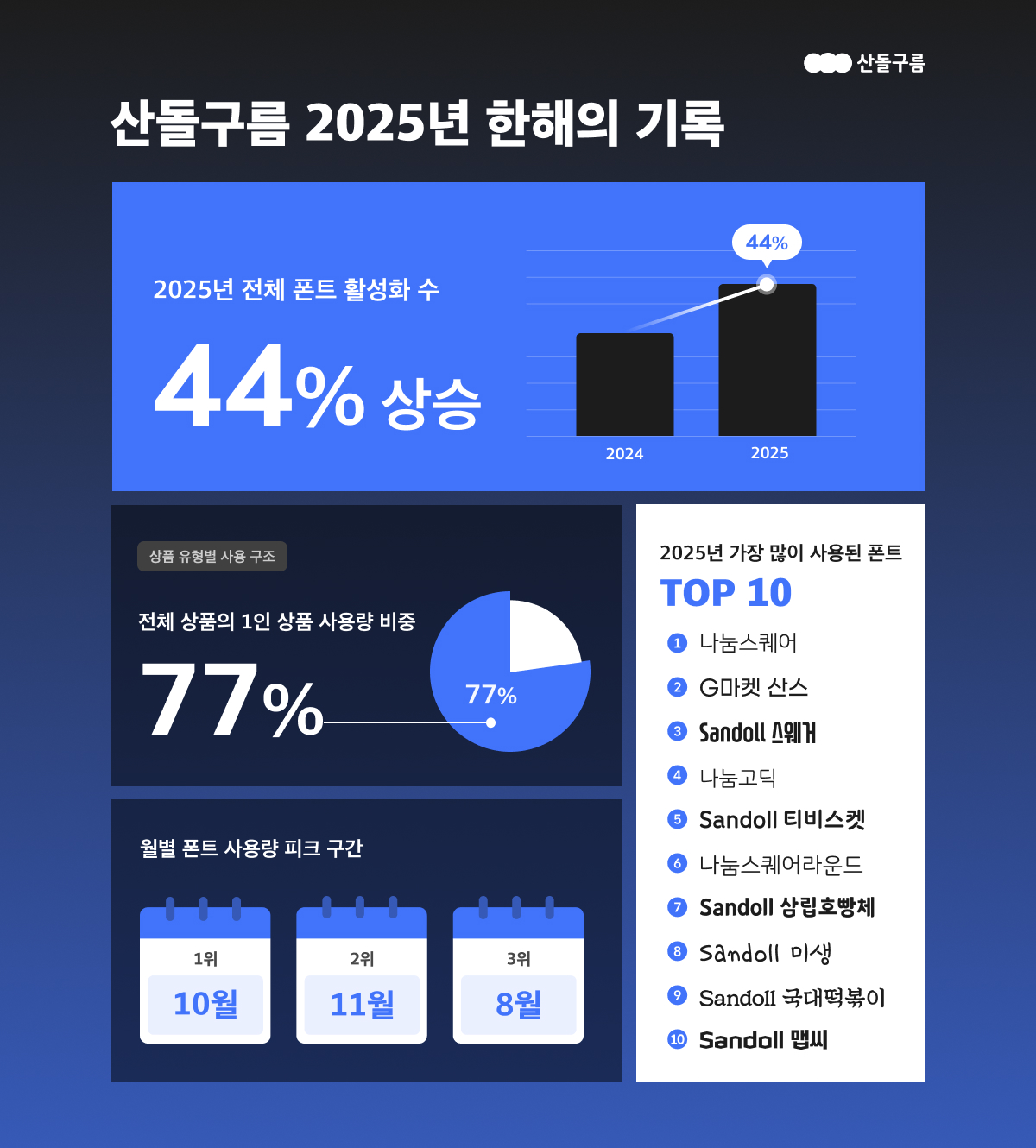
Sandoll Inc. (CEO Youngho Yun), a content creator platform company, announced on the 27th the results of its analysis of usage records from its font platform, Sandoll Cloud, over the past year.
An analysis of font usage data from Sandoll Cloud for 2024 and 2025 (January–December) shows that total font activations increased by 44% year-on-year. The company attributes this growth primarily to the combined effects of expanding K-content consumption and production, along with the rapid spread of AI-based content creation tools, which have significantly broadened the base of font usage.
This trend indicates that barriers to content creation are continuing to fall, and that fonts are becoming an essential production tool not only for professional designers but also for general creators.
A breakdown by product type in 2025 shows that individual plans increased year-on-year, accounting for 77% of total product usage. This reflects rapid expansion in the individual customer base.
Among individual plans, the “Life” plan—offering a broader font lineup and higher practical usability—recorded growing user numbers and accounted for more than 50% of total usage. Sandoll explained that this trend demonstrates how, driven by the spread of AI-based creation tools, a platform once used primarily by professionals is evolving into a mass-market content creation platform that includes individual creators.
As personal content creation across platforms such as YouTube, webtoons, and short-form video becomes increasingly commonplace, font consumption is also clearly shifting from a corporate and professional focus toward individual creators.
Looking at monthly font usage in 2025, October recorded the highest usage, followed by November and August.
October marked the introduction of Sandoll Cloud’s AI Studio, an image-generation program, after which both user numbers and font activations continued to increase into November.
According to the company, the introduction of AI-based creation environments simplified the process of selecting and using fonts, enabling non-professional users to participate more easily in content creation and driving increased usage.
In addition, the rising popularity of K-Pop Demon Hunters led to an increase in related content production, which also contributed to higher font usage in October.
The top 10 most-activated fonts on Sandoll Cloud in 2025 were:
▲ NanumSquare ▲ Gmarket Sans ▲ Sandoll Swagger ▲ NanumGothic ▲ Sandoll T-Biscuit ▲ NanumSquareRound ▲ Sandoll Samlip Hopang ▲ Sandoll Misaeng ▲ Sandoll National Tteokbokki ▲ Sandoll Maepse.
The top rankings featured a balanced mix of free fonts such as the Nanum series and Gmarket Sans, alongside character-driven, content-friendly fonts, indicating that fonts with high practical usability in real production environments were most widely adopted.
A Sandoll Cloud representative said, “Last year’s usage data clearly shows that amid the expansion of K-content and AI-based creation environments, Sandoll Cloud is evolving beyond a professional-centric platform into a mass-market content creation platform,” adding, “We will continue to strengthen our role as a platform supporting the broader K-content and creator ecosystem through data-driven analysis and AI technology.”